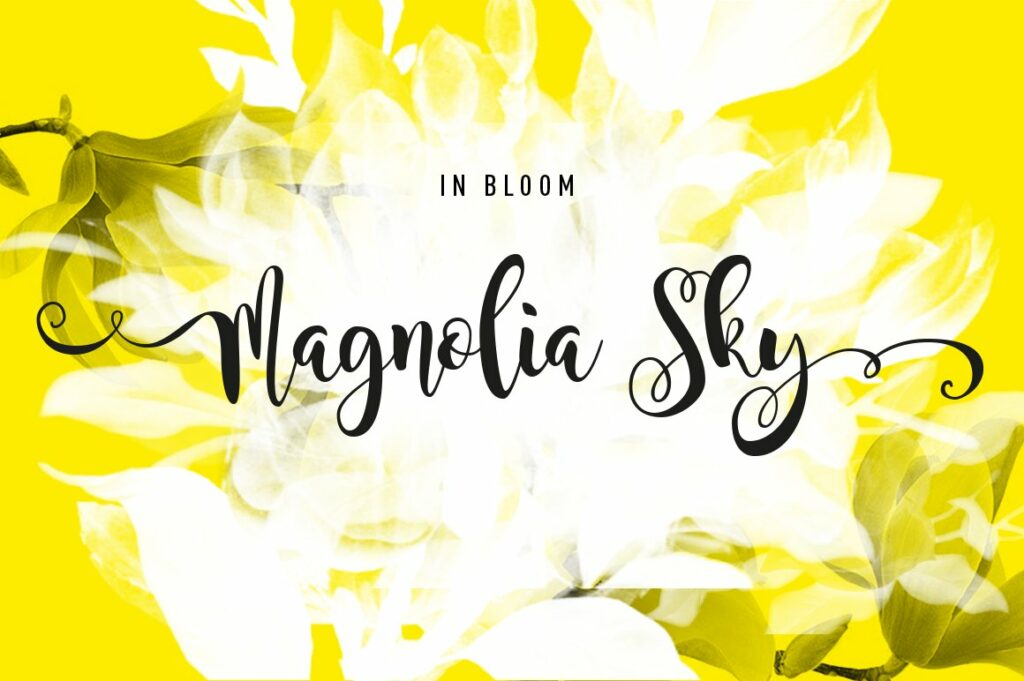
Magnolia Sky Font
Magnolia Sky Font is a smooth script font from a smooth brush pen. The full commercial version is provided with a set of alternate glyphes and ligatures. This font contains: Uppercase & Lowercase font Stylistic Alternates Ligatures Symbols & Punctuation OpenType Features Please note that OpenType Features require a software such as Photoshop/ Illustrator CC. Many thanks !